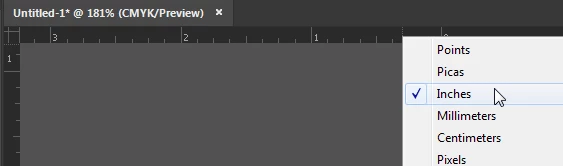
illustrator font height
I am trying to set the height of the letters to 4 inches. When I set the height in the transform area it sets the text box height. When I try to change the font size it doesn't match up.
The only way I have found was to convert the text to outlines then resize the height. This doesn't work well as I would like to change the height before converting to outlines. To boot I also need vertical text and it seems to be even harder to set the height of each letter after creating the outline.
Type cannot be measured that way. The reason goes back to before computers when each letter was a physical letter on a block. But never mind the reason -- you need a solution for your use.
I would suggest that you add a couple of horizontal ruler guides. If the rulers aren't showing, choose View > Show Rulers. If the units are not inches, right-click inside a ruler and choose inches.
Then select the black selection tool, put your cursor inside the horizontal ruler at the top of the window, press and drag down onto the artboard.
I have a ruler guide at the top of the artboard and one at the 4 inch mark. It doesn't matter exactly where the guides are as long as they are 4 inches apart.
Add the text and increase the point size in the Control panel until the letters are 4 inches tall and match up with the guides.
You'll notice that letters that are flat on the top and bottom, such as an I or H, are shorter than rounded letters like O and Q. That is normal. It is the way that fonts are designed.
A typeface is designed on an imaginary relative space called the em square. When you specify type size in software, you are specifying the height of the em square and the glyphs are scaled proportionally and positioned relatively to it.
The reason is not just an archaic throwback to pre-computer type casting.
Even in a single typeface, not all glyphs measure the same height. Rounded characters are taller than other characters. Ascenders and descenders differ in their heights.
Typefaces are designs. They vary widely in stylistic shape; geometric sans-serifs to flourishing scripts and everything in between. In a line of type, if you change a word or phrase to, for example, the italic version of the same font, the actual height measures often differ from the corresponding regular glyph. So you wouldn't want the specified type size to be an actual measure of the glyphs; you'd want the glyphs of the italics, punctuation marks, symbols, etc. to be correctly proportional to the non-italics.
So the em square serves as the "proportional equalizer" within a typeface. The actual glyph shapes are drawn in relative position to the em square, but are not necessarily constrained to fit within it. A flourish of a decorative script may exceed the bounds of the em square both horizontally and vertically (something not even possible in the pre-digital physical type slugs often cited as the reason for why type size is not specified according to the actual height of the glyph outlines).
The problem with using Illustrator's Use Preview Bounds setting is that it does just that: It simply causes the height and width fields to display measure values of the "painted" result of effects applied to the paths. So using it to set the height of text with the Outline Object effect applied will yield differently-sized results, depending on which characters are typed.
Usually, when someone wants to specify type by the "height of its characters", they really mean they want to specify the measure between the baseline and cap height (two guides within a typeface usually corresponding to the height of non-rounded capital glyphs). This is a common and legitimate need, for example, in the sign trade. CorelDraw provides an option to do just that, and it's one reason why Draw is popular within the sign trade.
Select the tet object with the select tool
Apply Effect > Path > Outline object
In Preferences > General select "Use preview bounds"
In the transform panel enter the height you wish to use.
You might want to delete the effect from the text once you're done because it causes the text to be outlined in PDFs you save from that file.